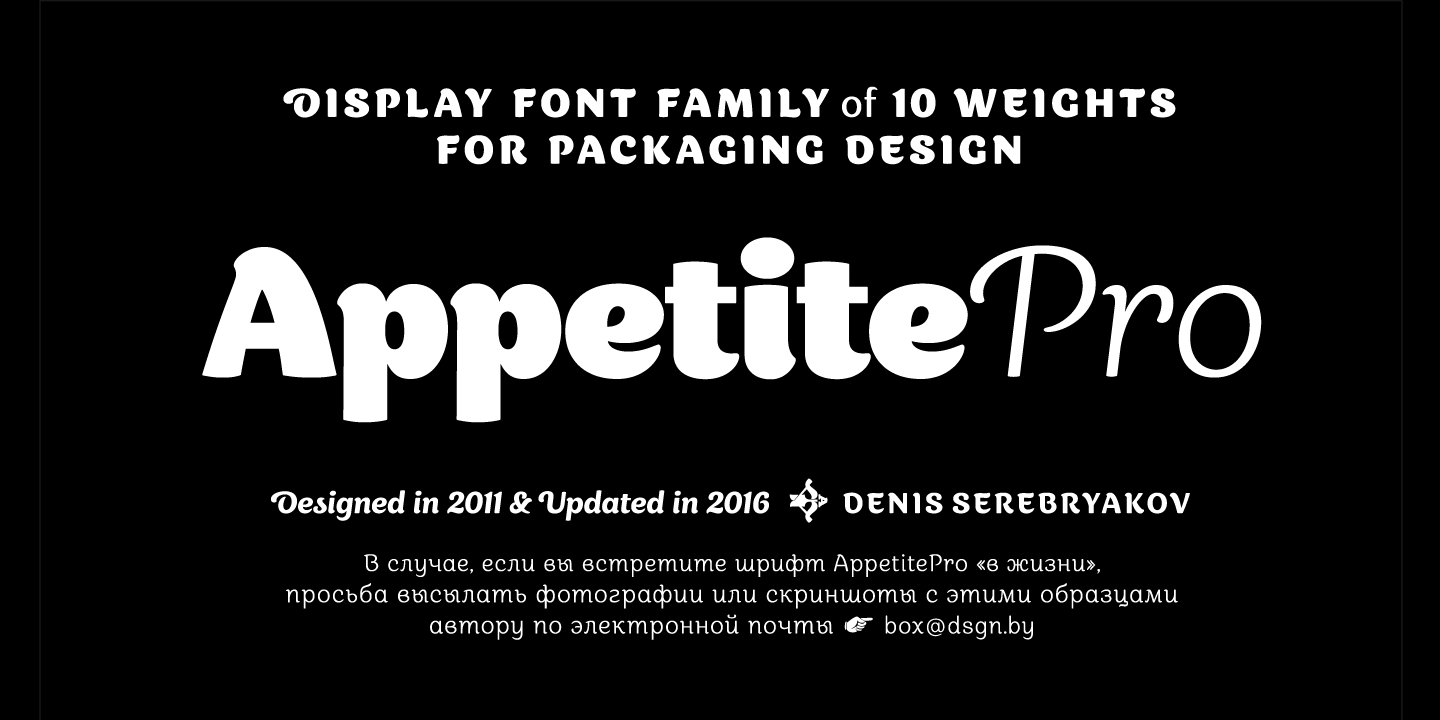
The Appetite Pro Font is perfect for culinary design projects including restaurant menus, food packaging designs, cookbook layouts, culinary blog headers, food delivery app interfaces, gourmet brand identities, chef portfolio websites, and gastronomic event materials. This appetizing typeface brings delicious visual appeal and culinary sophistication to any design project celebrating food culture and dining experiences.
What makes Appetite Pro Font so exciting is its mouth-watering combination of elegant refinement and inviting warmth that perfectly captures the essence of fine dining and culinary artistry. The letters feature carefully crafted proportions with subtle organic curves that evoke the pleasure and satisfaction of exceptional cuisine. This distinctive appetizing quality makes it perfect for brands and projects that want to communicate culinary excellence, taste, and gastronomic sophistication.
The Appetite Pro Font family typically includes multiple weights from light to bold, complete with italic variations and extensive character sets. Many versions feature culinary symbols, decorative flourishes, and gourmet-inspired glyphs that enhance its authenticity for restaurant and food industry applications.
Whether you're designing for fine dining establishments, gourmet food brands, or culinary publications, Appetite Pro Font Free Download offers the perfect solution for projects that need to stimulate appetite and convey culinary expertise. This font transforms food-related content into delicious designs that immediately communicate quality, taste, and culinary passion to food enthusiasts and dining connoisseurs.